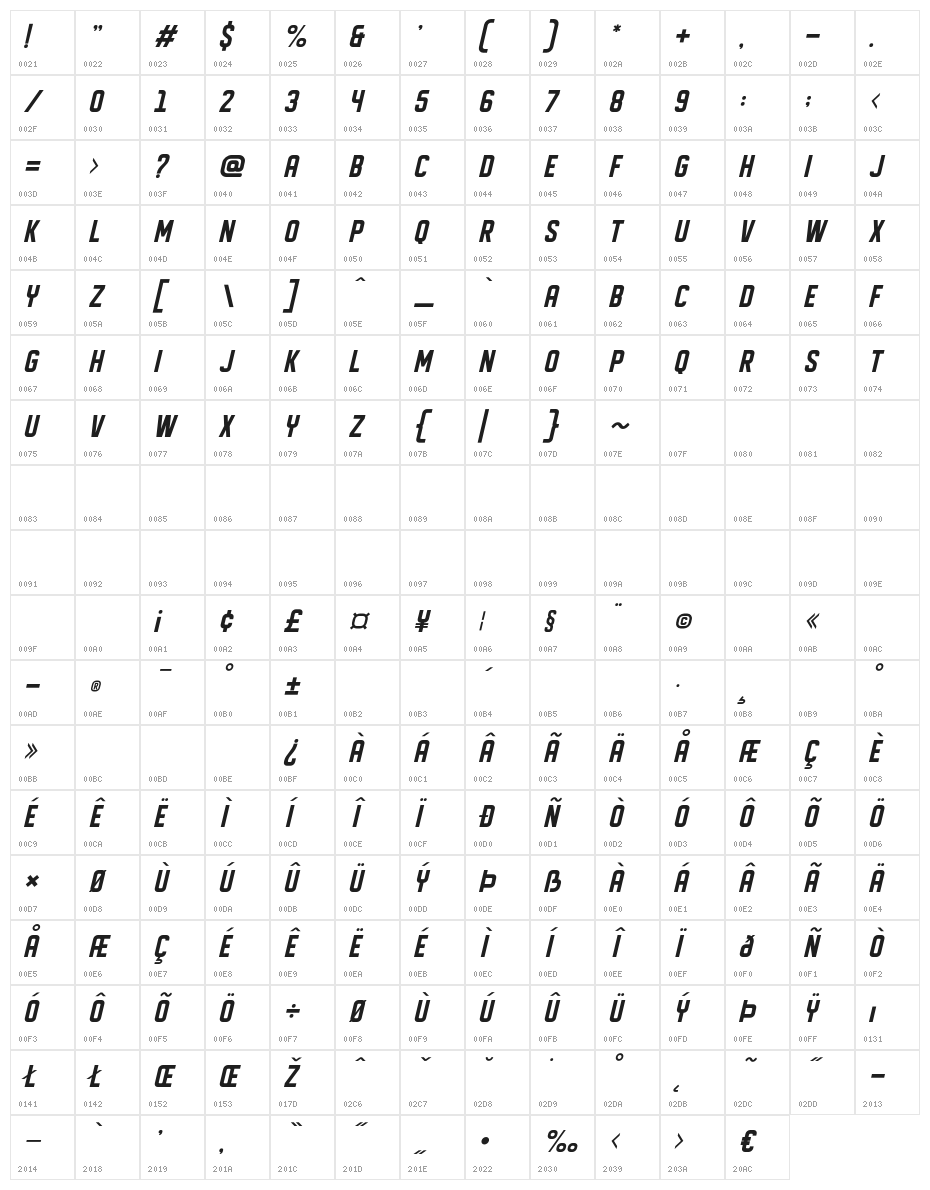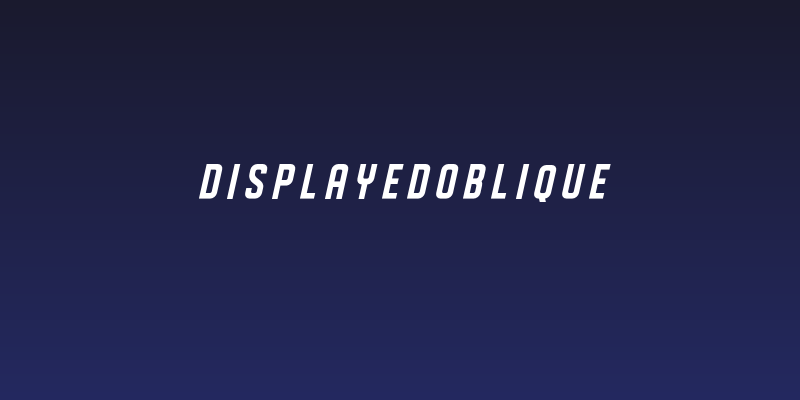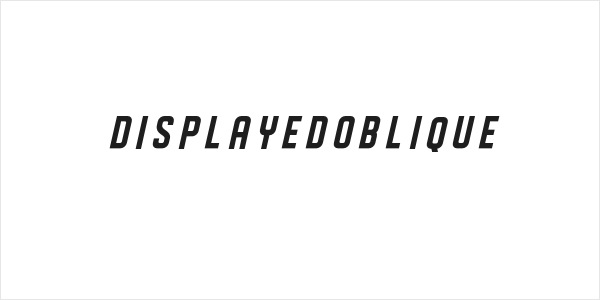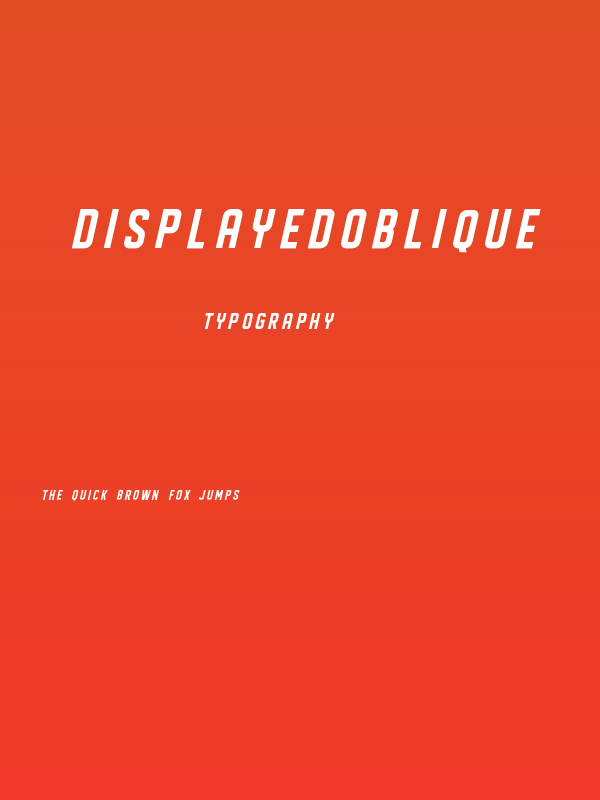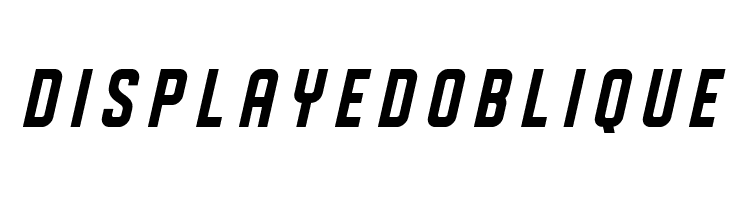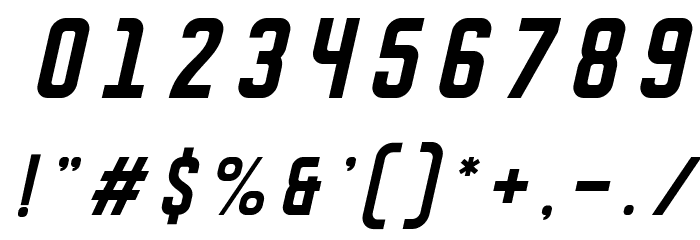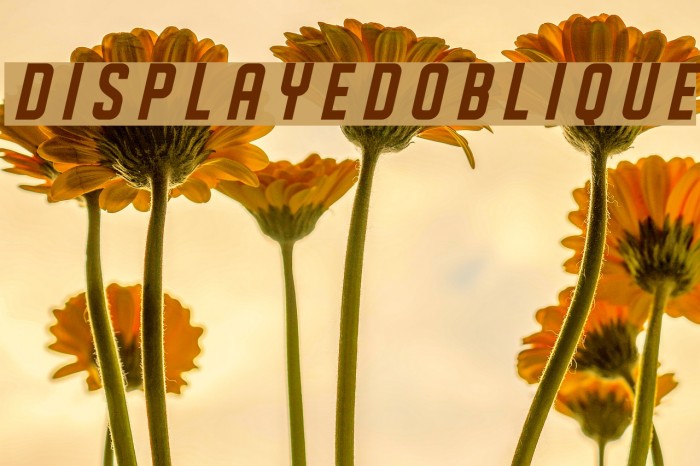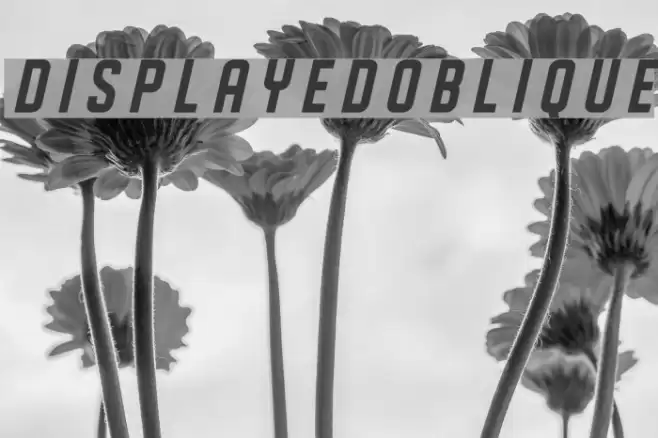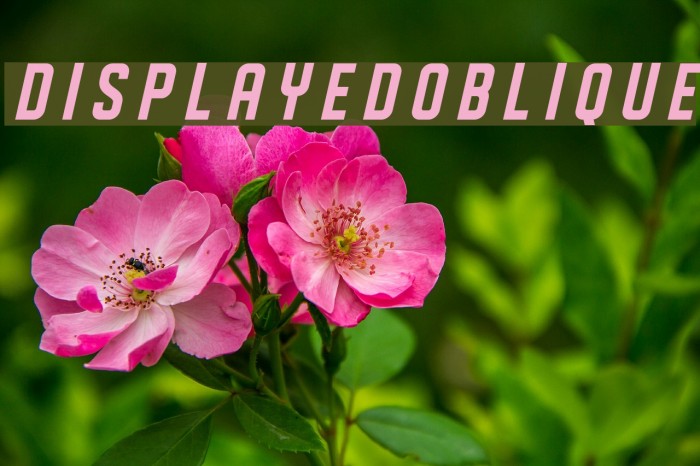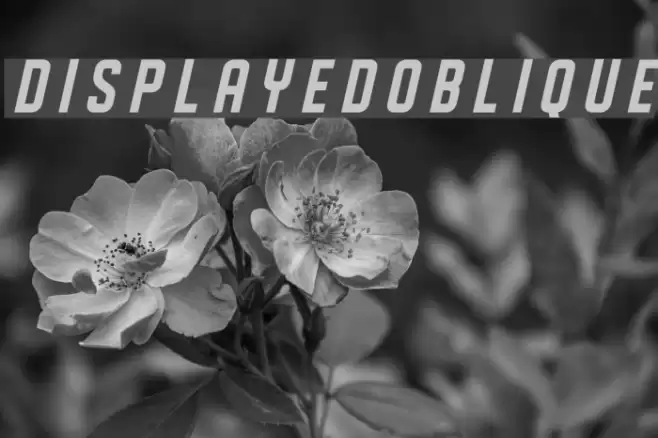
DISPLAYEDOblique Font
| Projets proposés | Ideal for sports branding, dynamic posters, modern advertisements, and any project needing a sense of motion. |